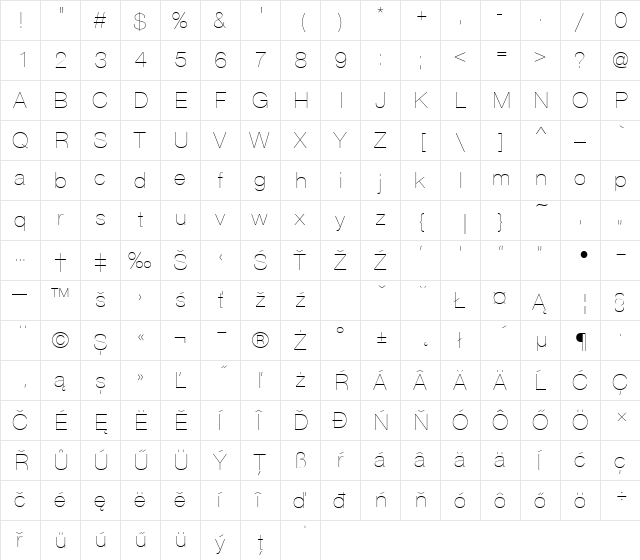
NimbuSanDEEUltLig Regular
Design Context for NimbuSanDEEUltLig Typeface
NimbuSanDEEUltLig is a composed and adaptable typeface that performs quietly and consistently across a wide range of design contexts.